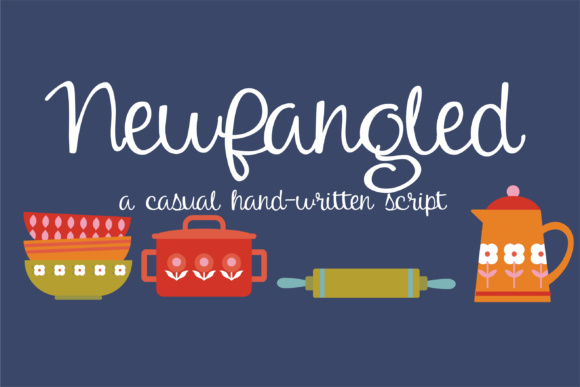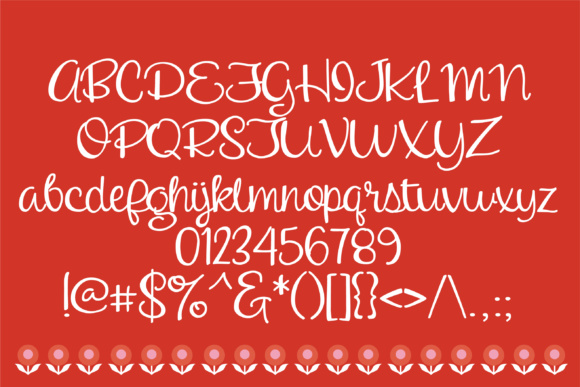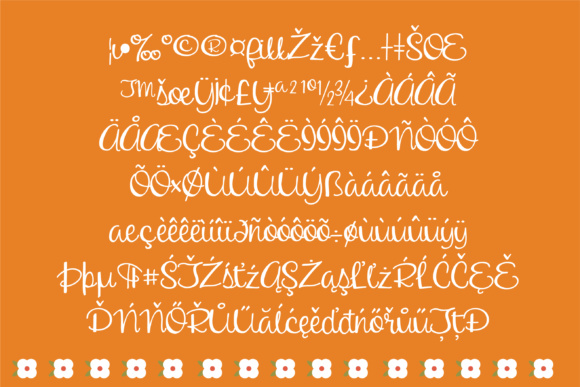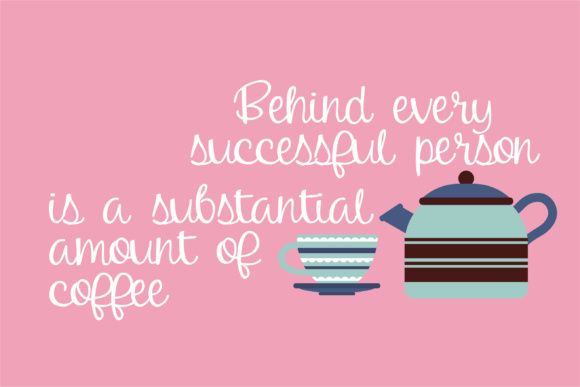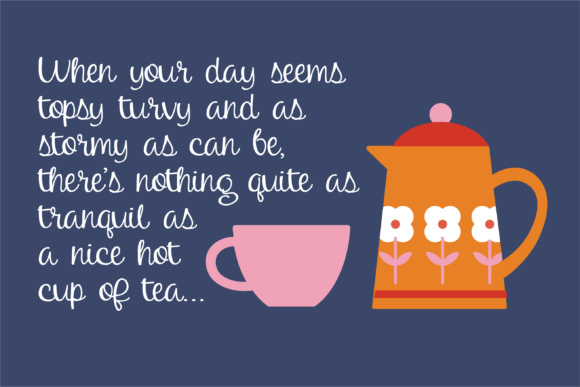
HomeScript FontsNewfangled Font Script Fonts Newfangled Font FacebookXPinterestWhatsApp Newfangled Font Poster 2 Newfangled Font Poster 3 Newfangled Font Poster 4 Newfangled Font Poster 5 About Newfangled Font This hand-written cursive script has full letters and a cute newfangled lowercase “g”. DOWNLOAD ON CREATIVE FABRICAThis font is sold and delivered by Creative Fabrica. Font Canyon may earn a commission if you buy through this link. People also explored Best Time Font Daylight Font Ameralda Font Octighost Font Little Flick Font The Magician Font Azalea Split Font Pierrce Font Harlesy Font 320 0 TagsNewfangled Font Previous articleOogety Hand FontNext articleStinkbug Font LEAVE A REPLY Cancel reply Comment: Please enter your comment! Name:* Please enter your name here Email:* You have entered an incorrect email address! Please enter your email address here Website: Save my name, email, and website in this browser for the next time I comment. Personal Use Free Machine House Personal Use Free Read more about this font Wintersoul Personal Use Free Read more about this font Beloved Script Personal Use Free Read more about this font Historise Personal Use Free Read more about this font BLOG Fonts That Capture the Spirit of New York City New York City is more than just a place—it’s an experience, a rhythm, a visual language... How to Cut Any Font on Cricut: Convert a Font to SVG (Free) Best Fonts for YouTube Videos: Make Your Thumbnails Stand Out How to Install and Use Fonts on Windows, macOS, and Web Projects